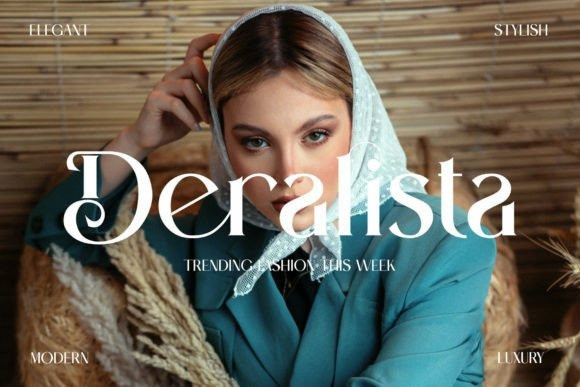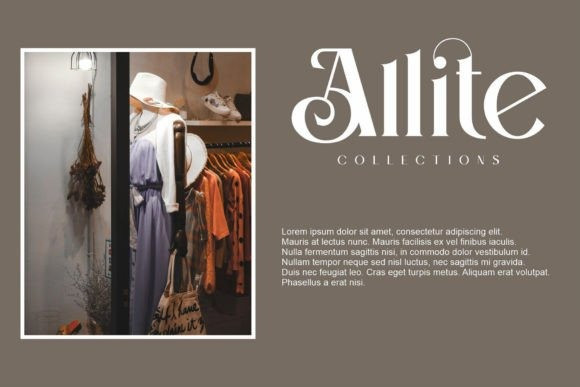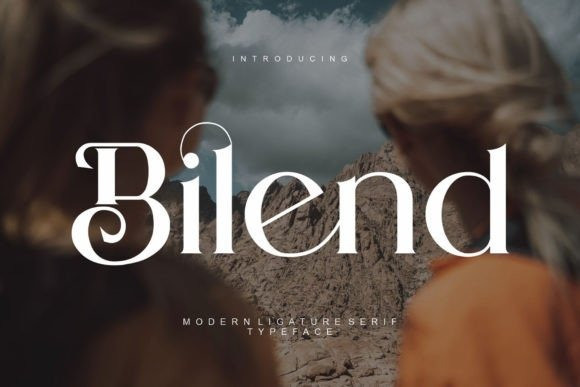
Bilend Font
Bilend Font is an elegant and classy serif typeface. This font is both modern and nostalgic and works great for logos, magazines, and social media.